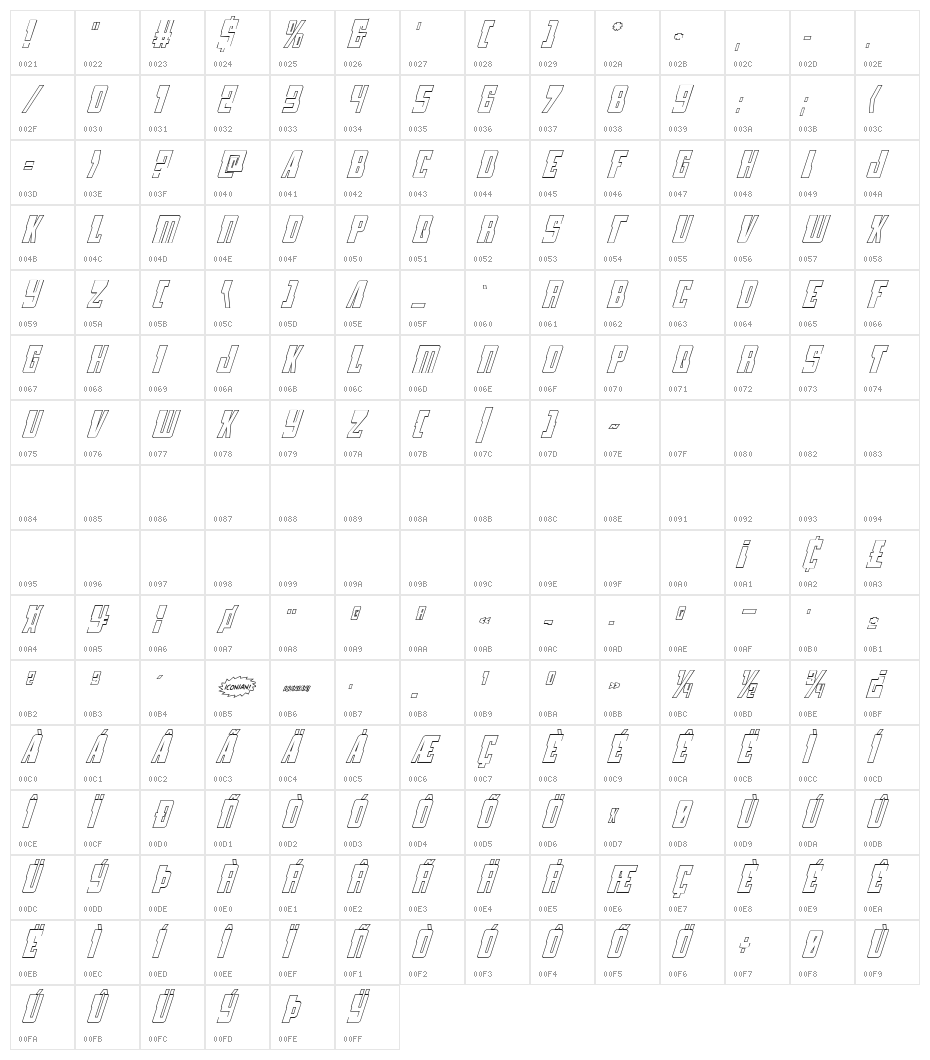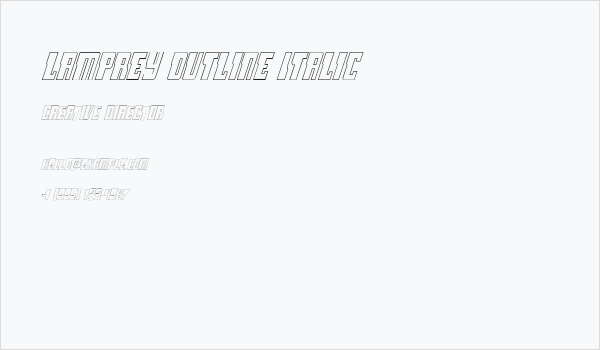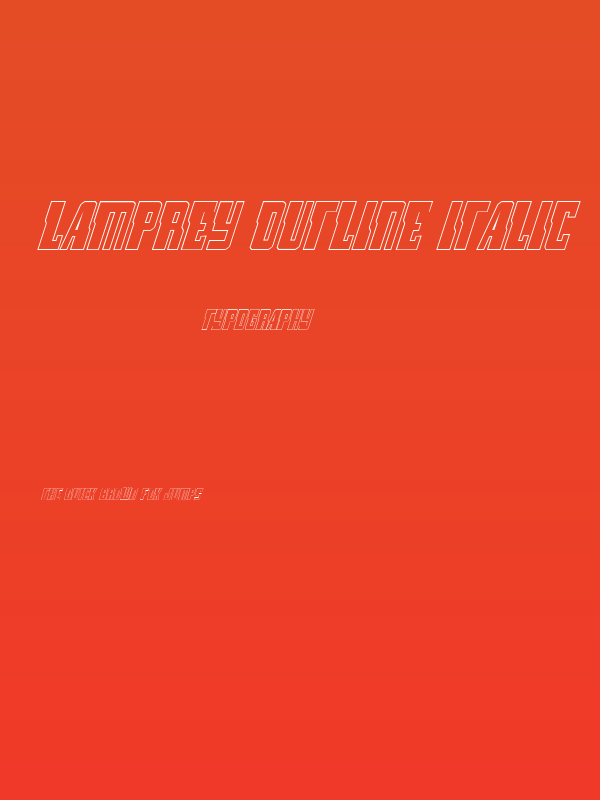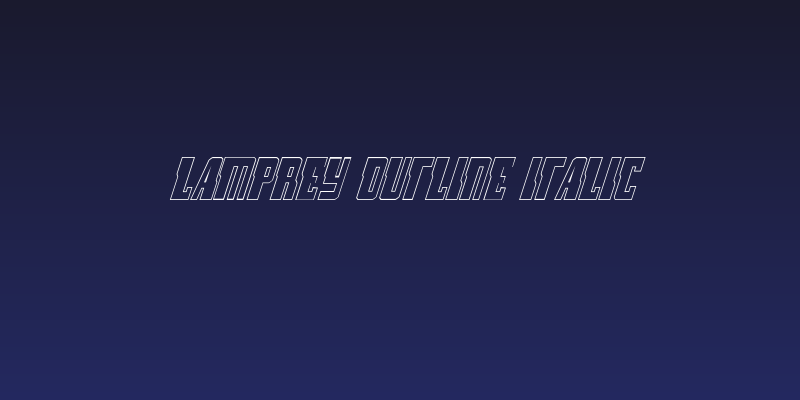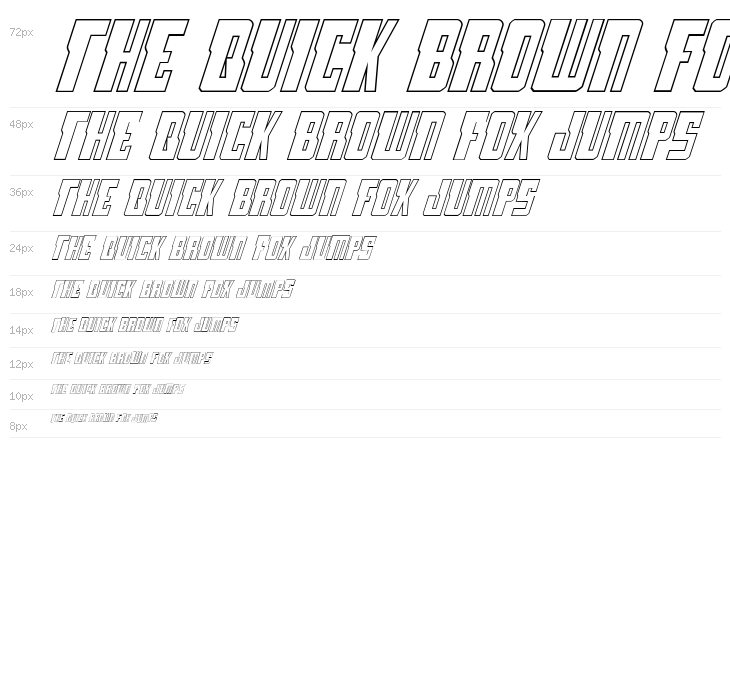
Lamprey Outline Italic Font
Lamprey Outline Italic Description
This font features a bold, angular design with a distinct outline style that gives it a modern and edgy appearance. The characters are italicized, adding a dynamic and forward-leaning aspect to the overall look. Each letter is crafted with sharp edges and a geometric structure, making it stand out with a futuristic vibe. The uppercase and lowercase letters maintain a consistent style, while the numbers and special characters complement the overall design with similar angular outlines. This font is ideal for projects that require a strong visual impact and a contemporary feel.
| Proposed Projects | Ideal for futuristic branding, tech-related designs, video game titles, and dynamic posters. |